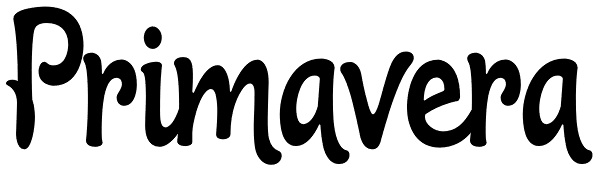
Primavera
Primavera is a fresh and spirited take on casual handwriting. The usual playfulness and expertise of Angel Koziupa's forms, along with the smooth, crisp outlines of Alejandro Paul, provide a humorous and lively typeface in two styles that fit...
Primavera Italic